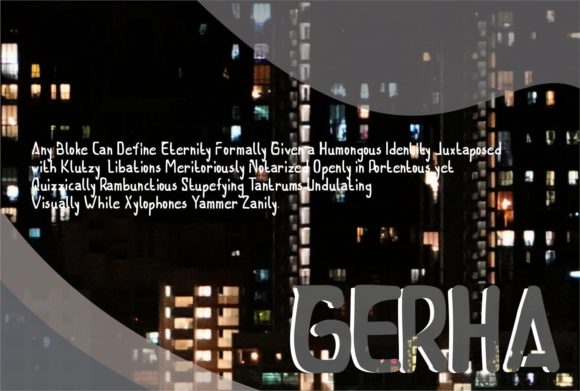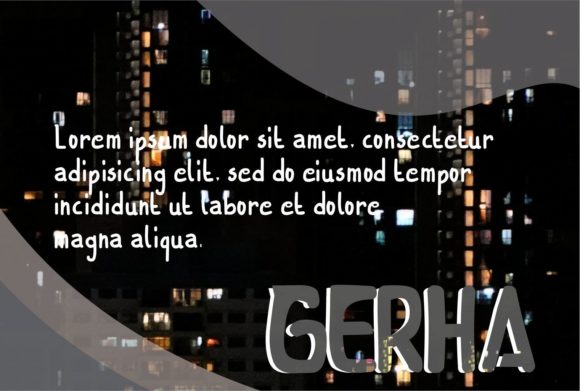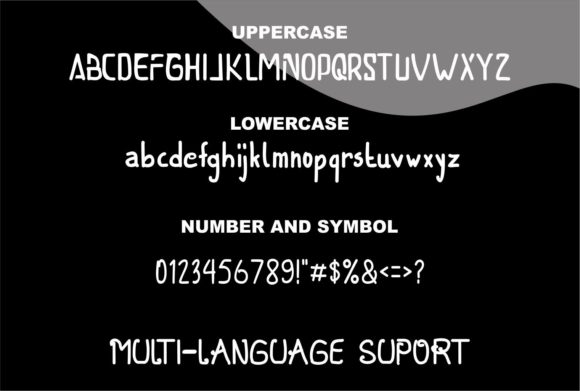
Introduction to Gerha Font
Gerha is a clean and adaptable display font.
It will look stunning on any poster, flyer or print Use this font for your designs and explore its endless possibilities.
Key Features of Gerha Font
Why Choose Gerha Font?
Gerha Font offers exceptional quality and versatility, making it a valuable addition to your design toolkit. Whether you’re creating for personal projects or commercial use, Gerha Font delivers professional results.